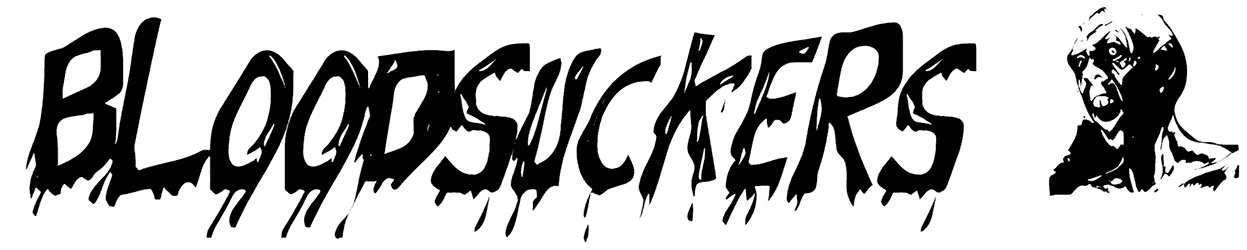
Bloodsuckers Font
Fearful, jauntiness, and eye-catching are the best possible descriptions for a , the same as Bloodsuckers, which comes with the imbalance and oblique characters.
This masterpiece would look insanely perfect on a wide set of graphic content ranging from movie posters, social media posts, and video game brochures, to logos. We have gathered a limitless list of various fonts in our library, so don’t hesitate to visit the RB archive.